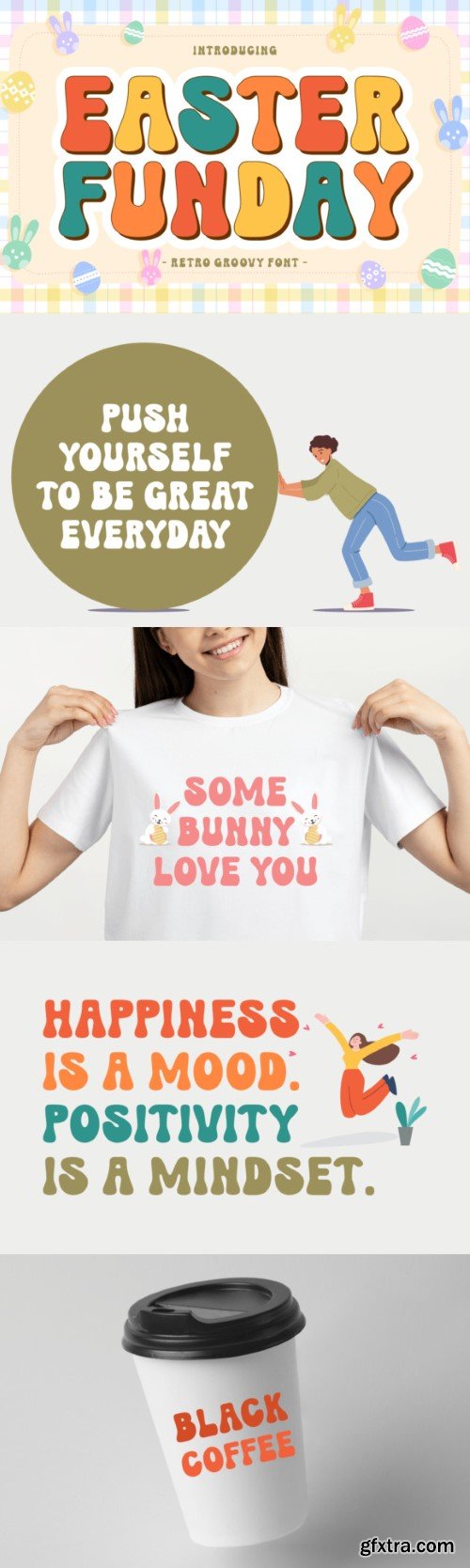
复活节欢腾字体
Easter Funday is a funky retro font that brings a groovy vibe to your designs. With its playful style and vintage charm, it’s perfect for adding a retro touch to your Easter-themed projects. Let Easter Funday infuse your creations with a fun and nostalgic feel, making them stand out with a cool, retro flair.